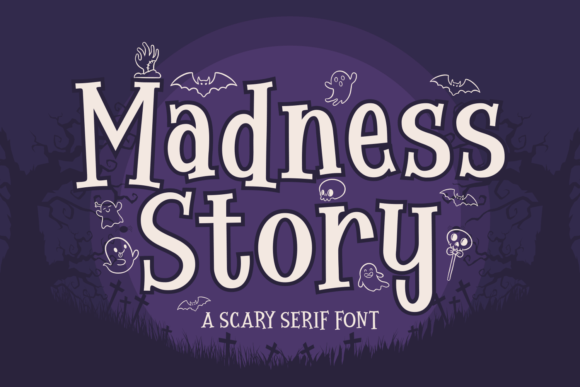
Madness Story Font
In a world where stories leap off the page, where shadows dance with imagination, lies Madness Story Font - a font that captures the essence of haunting tales. Join the realm of darkness and embrace the captivating stroke of horror and mystery. Whether it's a moonlit Halloween night, a terrifying haunted house, or an eerie ancient castle, Madness Story Font will unleash the spirit of fear and thrill.
Imagine the spine-chilling whispers and the haunting silence of a forgotten graveyard, brought to life with the strokes of our spine-tingling font. This font is more than just a collection of letters; it's a portal to a realm where nightmares reside. Its serif edges create an aura of elegance, while its whimsical and mysterious charm breathes life into your tales of horror. Let your words dance with darkness as you craft eerie stories that make hearts skip a beat.
Unleash the storyteller within you and immerse yourself in the realm of spine-chilling adventures. Craft mysterious invitations to haunted mansions, design hair-raising posters for Halloween parties, or create captivating book covers that beckon readers to delve into the depths of fear. Madness Story Font is your key to unlocking a world of spooky creations, bringing your imagination to life with terrifying beauty.
The possibilities are endless with Madness Story Font. Its versatility extends beyond the realm of horror, lending a touch of elegance and mystery to your designs. Imagine creating hauntingly beautiful wedding invitations, designing posters for theatrical productions, or capturing the essence of gothic romance in your creative pursuits. Let this font guide you through the labyrinth of creativity, leaving a trail of thrill and awe in its wake.
So, dare to delve into the world of darkness, embrace the thrill of the unknown, and let Madness Story Font become your companion in creating spine-chilling masterpieces. Let your imagination run wild as you weave tales of terror, leaving your readers haunted and captivated by the sheer brilliance of your creations. Step into the realm of Madness Story Font, unleash the storyteller within, and let your words dance with the shadows of fear.